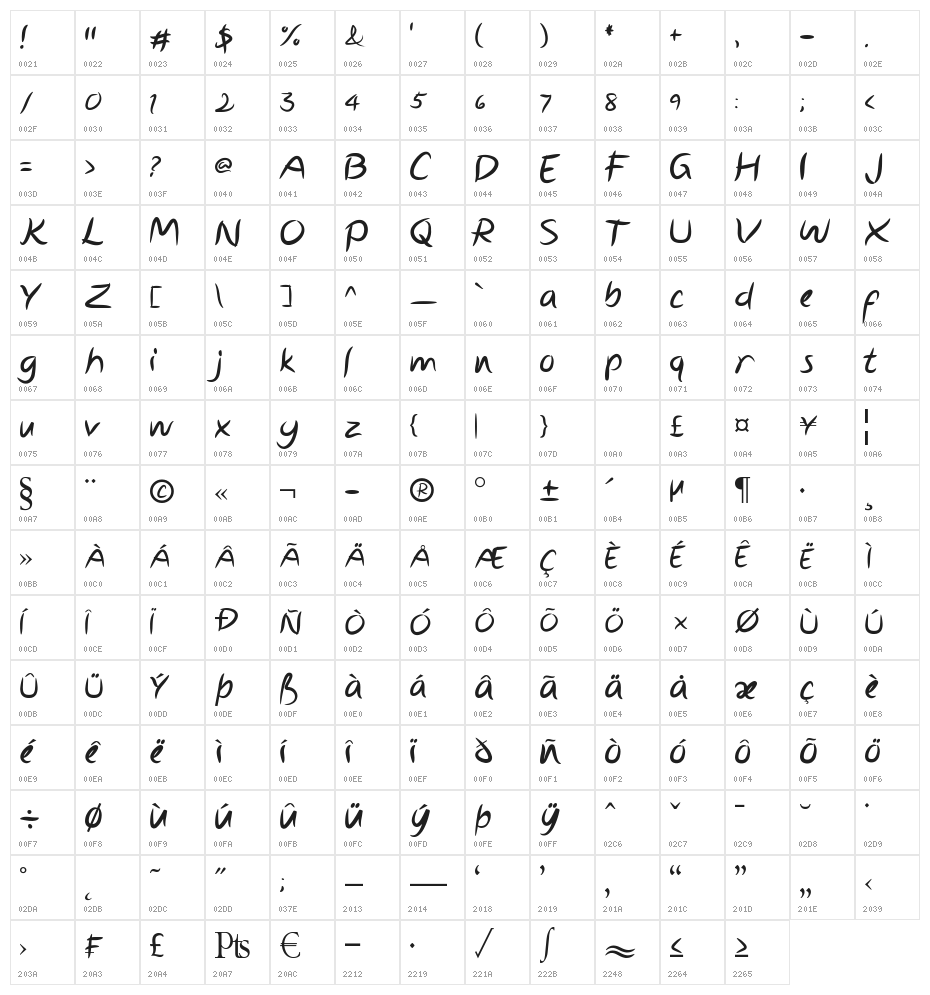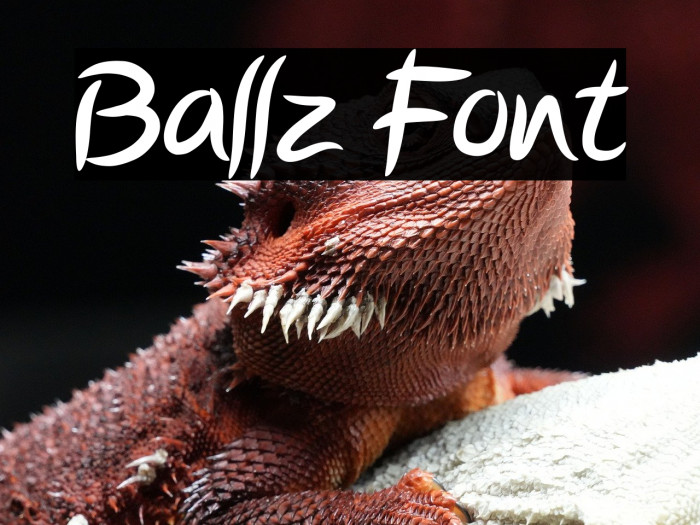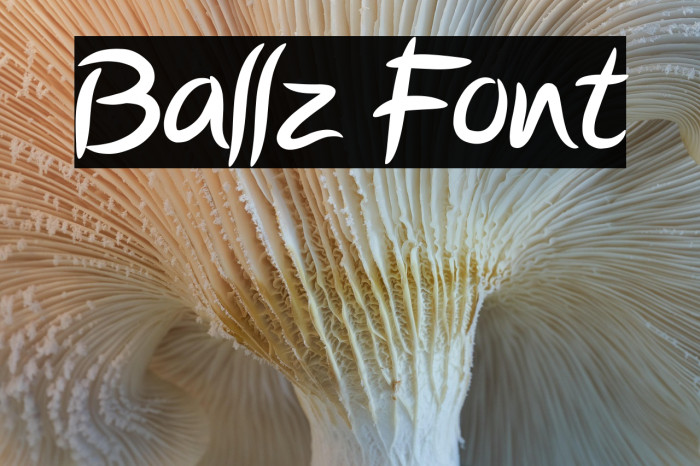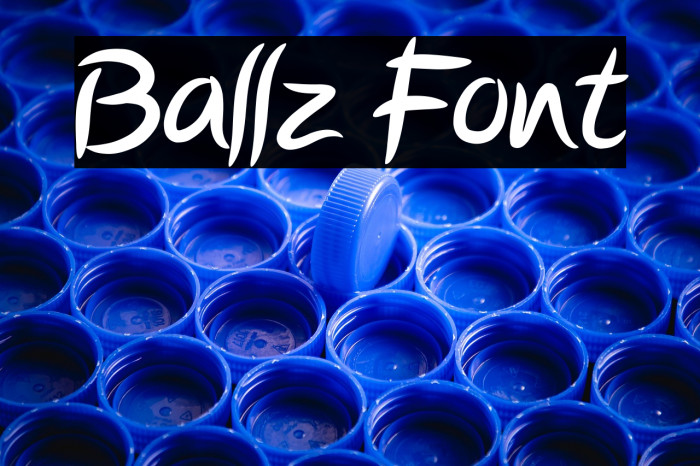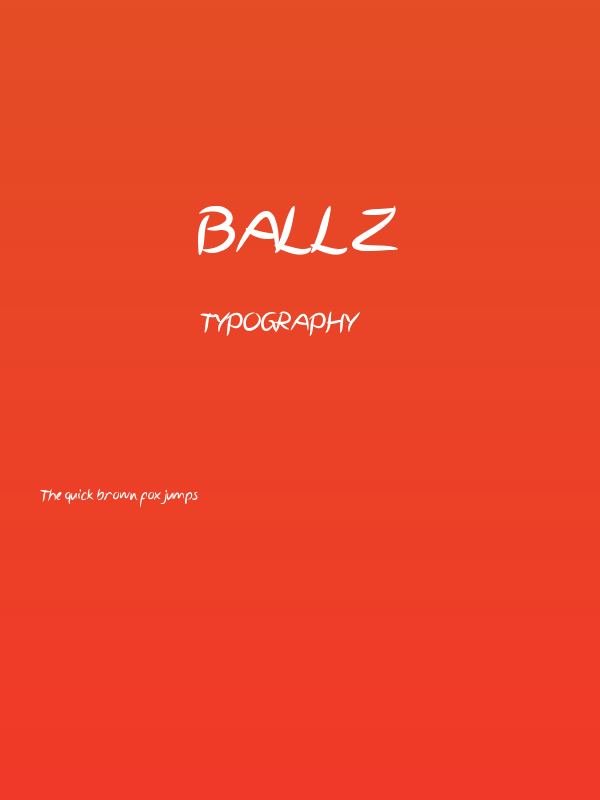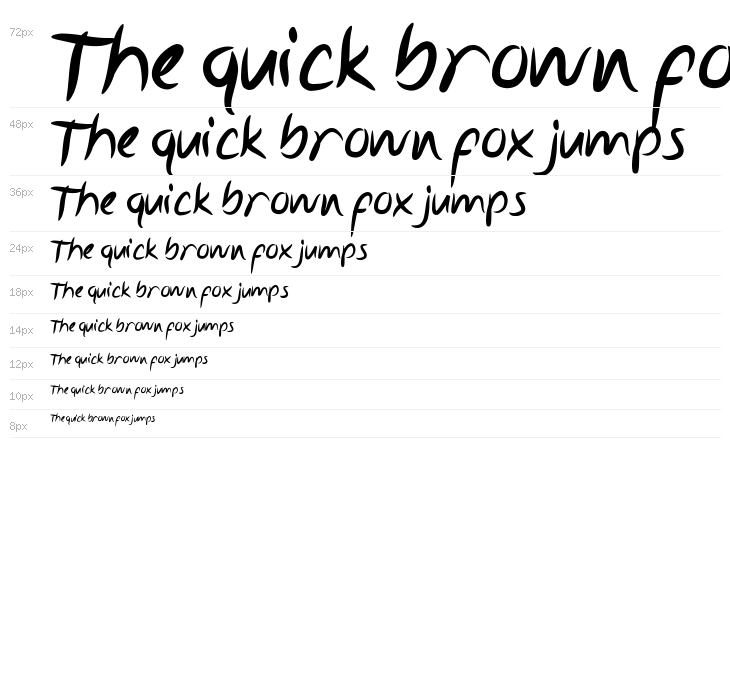
Ballz Font
Ballz Description
This font exudes a dynamic and energetic vibe with its bold, handwritten style. The characters are fluid and slightly slanted, giving a sense of motion and informality. The uppercase letters are distinct with sharp angles and smooth curves, while the lowercase letters maintain a consistent flow, enhancing readability. The numerals are well-proportioned, and the special characters are creatively designed to match the overall aesthetic. This font is perfect for projects that require a personal touch or a casual, yet impactful appearance.
| Overall Style | Modern, Casual |
| Proposed Projects | Ideal for branding, posters, social media graphics, and creative projects that require a personal and energetic touch. |